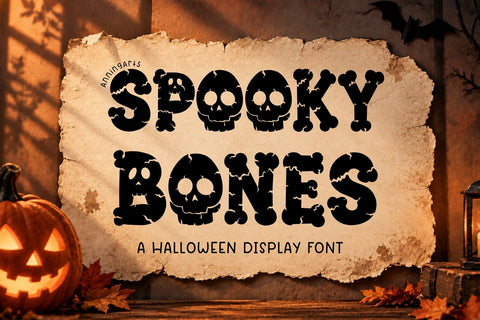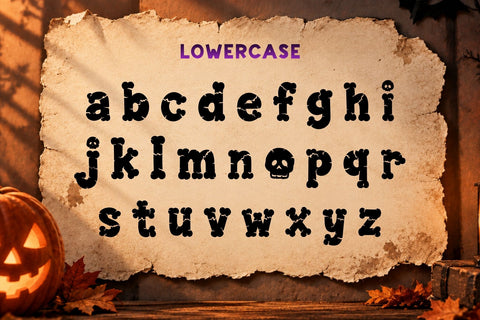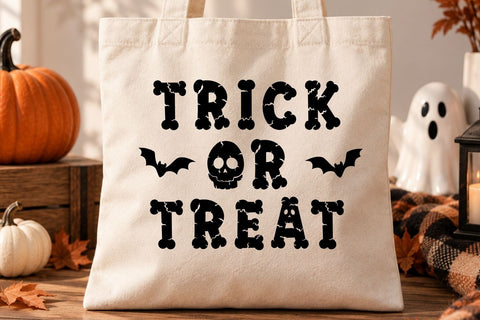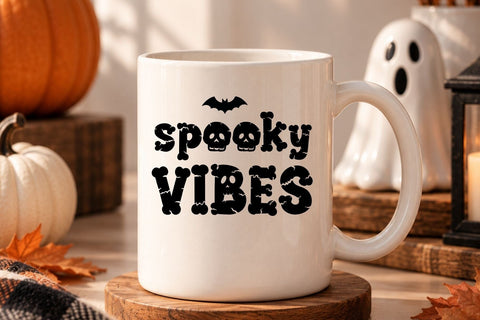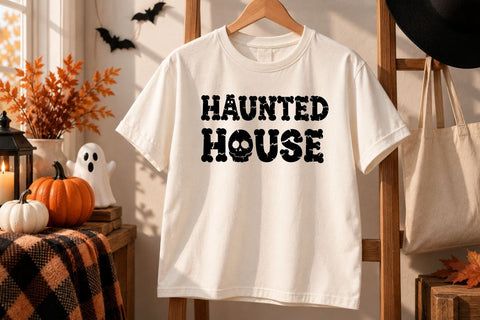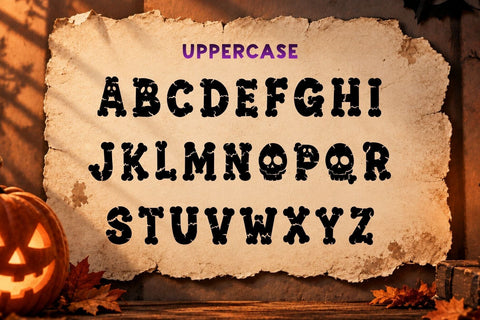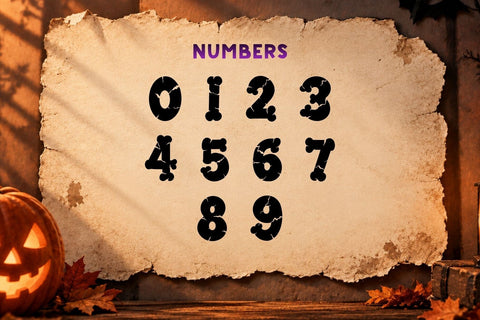
Spooky Bones - Halloween Font for Cricut Crafts
Spooky Bones is a fun Halloween display font with bold bone-style letters, skull details, and distressed spooky textures. Its decorative look is perfect for creating Halloween craft designs that feel creepy, playful, and eye-catching.